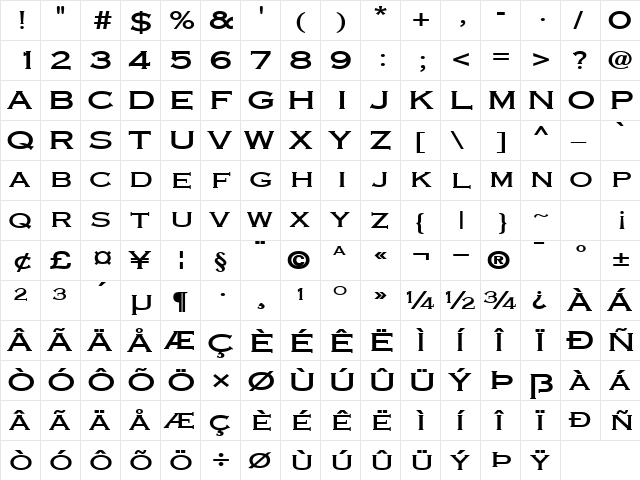
Engraver-Extended Bold
Design Context for Engraver-Extended Typeface
Engraver-Extended offers clean, dependable letterforms without strong stylistic allegiance, making it a practical choice for designers who need flexibility. Its bold stroke weight gives it real presence on the page.